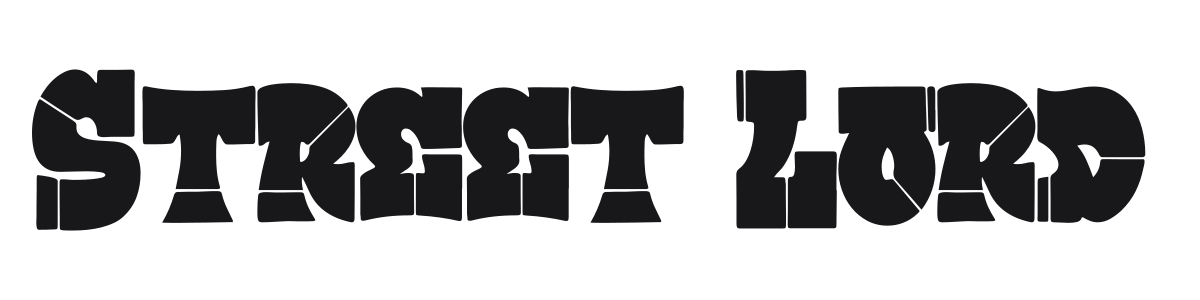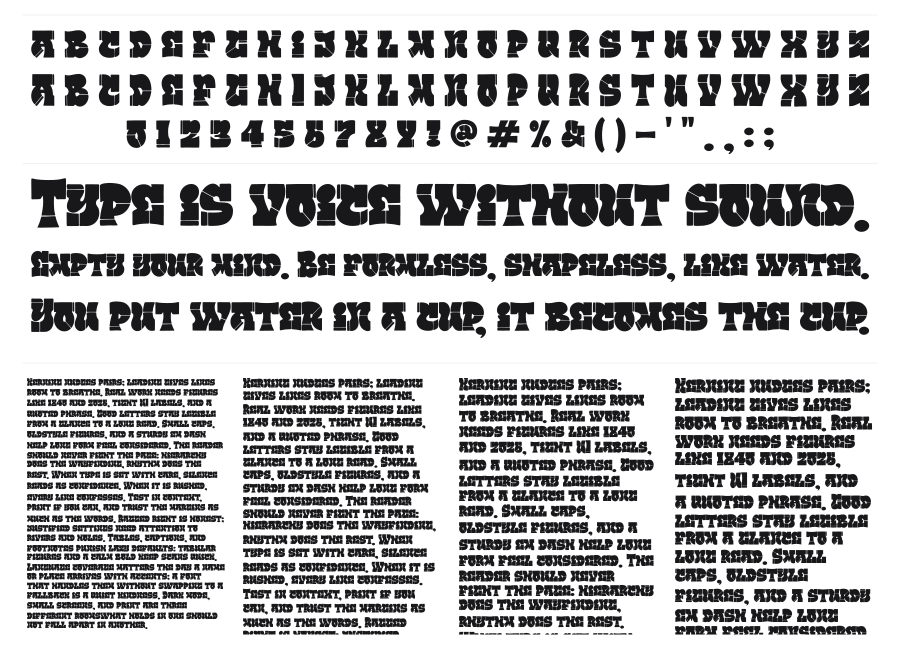
Street Lord
Street Lord is a heavy groovy display face built on thick, rounded forms sliced through with deep interior cut lines that give each character a segmented, almost stencil-like structure. The design channels 1970s psychedelic typography with a street-culture edge. Best used large, where the bold segmentation reads as intended.